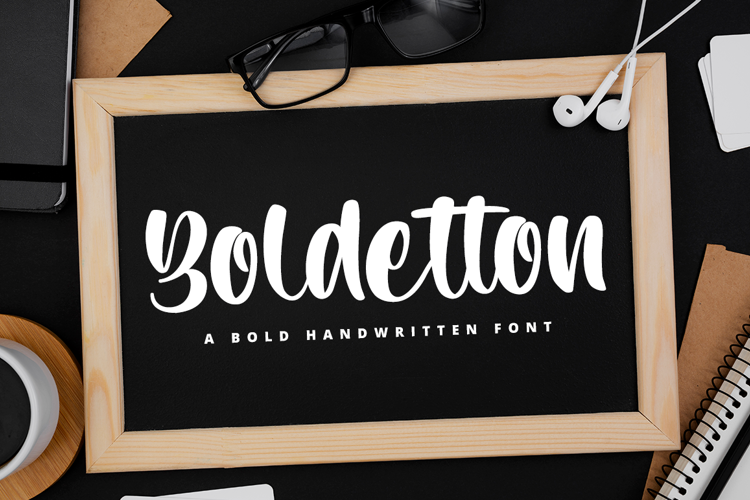
Boldetton Font
Boldetton is an elegant and bold script font. Fall in love with its incredibly versatile style and use it to create gorgeous wedding invitations, beautiful stationary art, eye-catching social media posts, and much more!